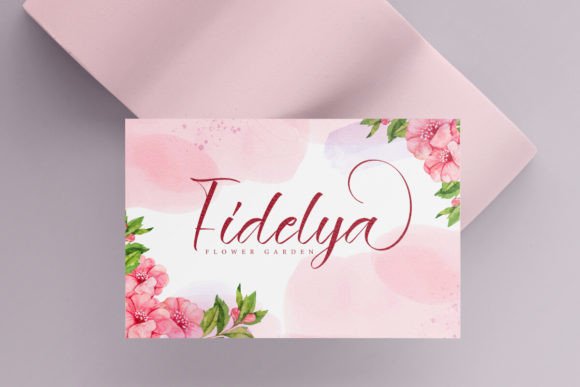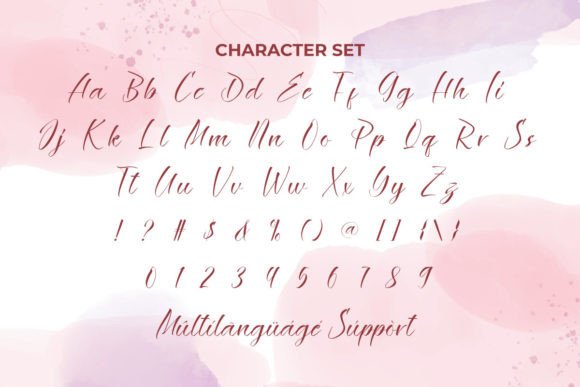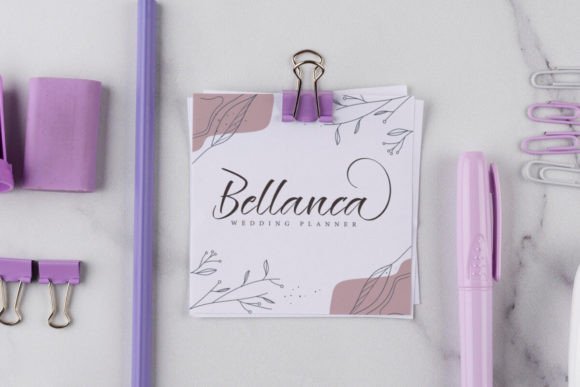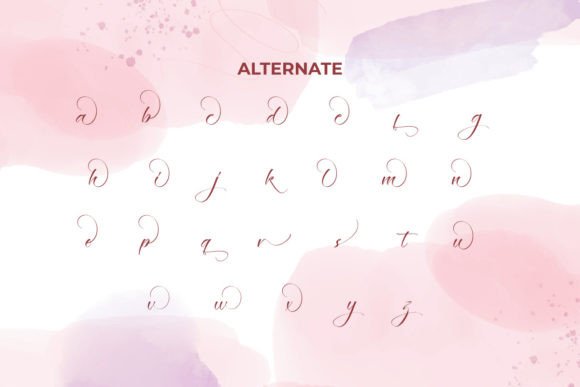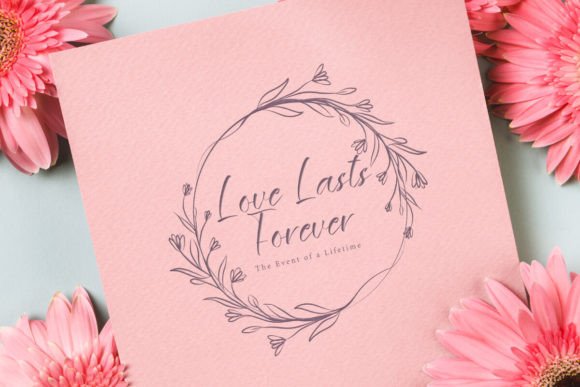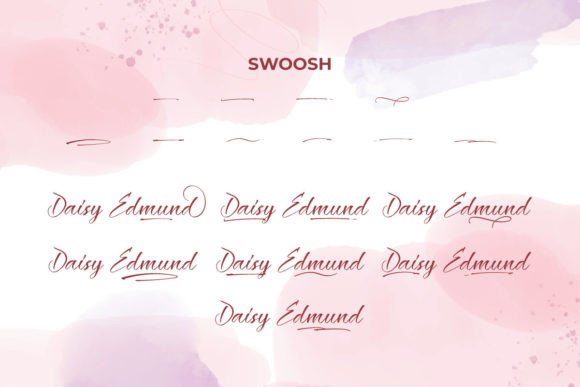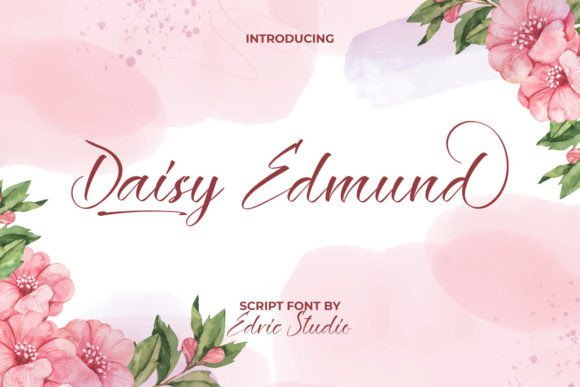
Meet the Beauty of Daisy Edmund Font
As a designer, there’s nothing quite like the thrill of discovering a new font that sparks creativity and inspires your next project. It’s that moment when you see a beautiful daisy blooming in a field of ordinary typefaces, and you know you’ve found something special. Enter Daisy Edmund Font, an elegant calligraphy script font that captures the essence of flowers and sunshine.
With its sleek and flowing brush strokes, Daisy Edmund Font is perfect for creating stunning signatures, branding elements, and invitations that are sure to impress. But what really sets this font apart is its versatility – it’s suitable for a wide range of industries, from beauty clinics to publishing, and everything in between. Whether you’re a seasoned designer or just starting out, Daisy Edmund Font is a valuable addition to your toolkit.
Daisy Edmund Font Key Features
• Font Family: Daisy Edmund is a script font designed by Fontfabric.
• Unique Characteristics: Daisy Edmund features a hand-drawn, elegant, and whimsical style with connected letterforms and subtle flourishes.
Daisy Edmund Font Review
I recently had the chance to work with the Daisy Edmund font, and I must say it’s a mixed bag. Here’s my honest review:
• ✨ Beautiful, hand-drawn feel: The font has a lovely, organic quality that’s perfect for adding a touch of whimsy to your designs.
• ✨ Good legibility: Despite its cursive nature, the font is surprisingly easy to read, even at smaller sizes.
• ✨ Versatile: Daisy Edmund works well in a variety of contexts, from titles and headings to body text and even display fonts.
• ⚠️ Limited language support: The font only includes characters for English and a few other languages, which may limit its use for multilingual designs.
• ⚠️ Some letterforms may be difficult to customize: While the font is generally well-behaved, some of the letterforms can be tricky to modify or adjust.
Overall, I think Daisy Edmund is a great addition to any designer’s toolkit. While it may have some limitations, its unique feel and good legibility make it a solid choice for a wide range of projects. With a little creativity and experimentation, you can achieve some truly beautiful results with this font.
To get the most out of the Daisy Edmund font, use it in combination with other decorative fonts to create a unique visual identity. Experiment with different font sizes, colors, and styles to create a visually appealing design.
The Daisy Edmund font is suitable for various applications, including:
– Branding and marketing materials
– Digital and print publications
– Social media graphics and ads